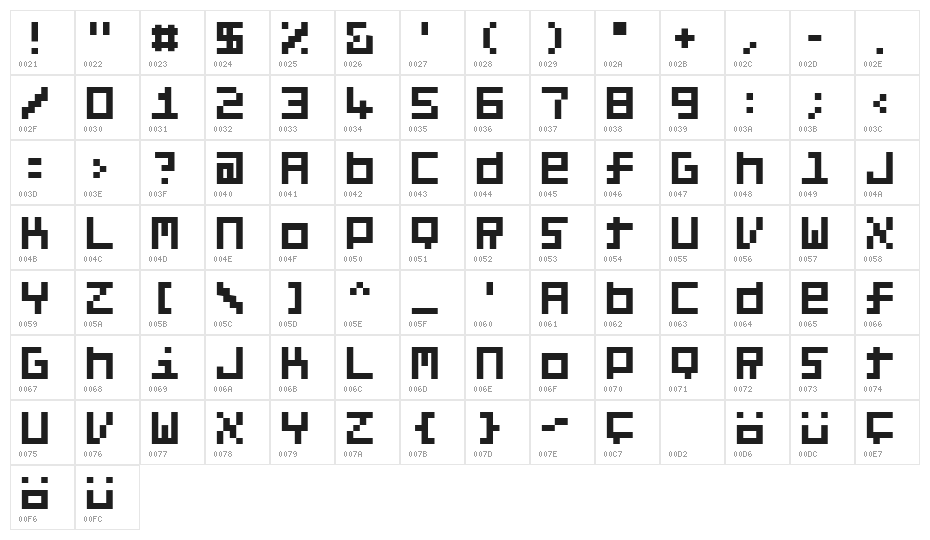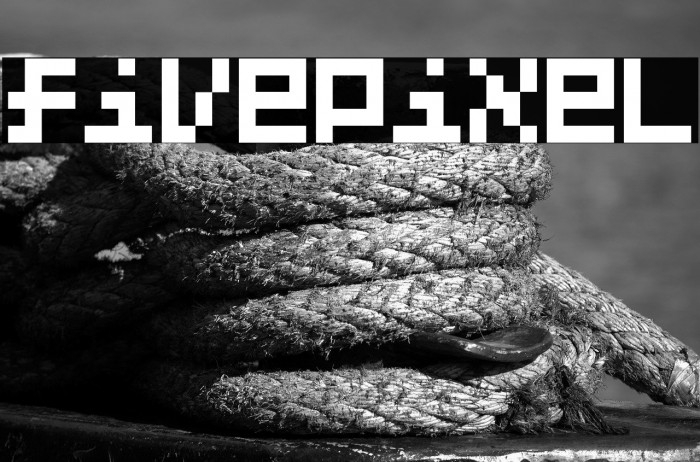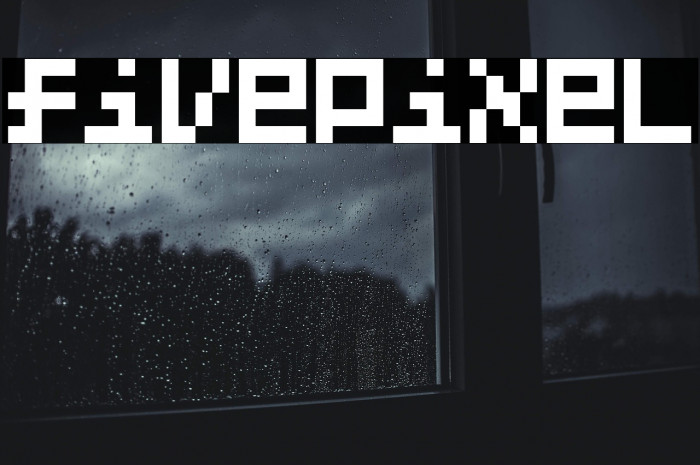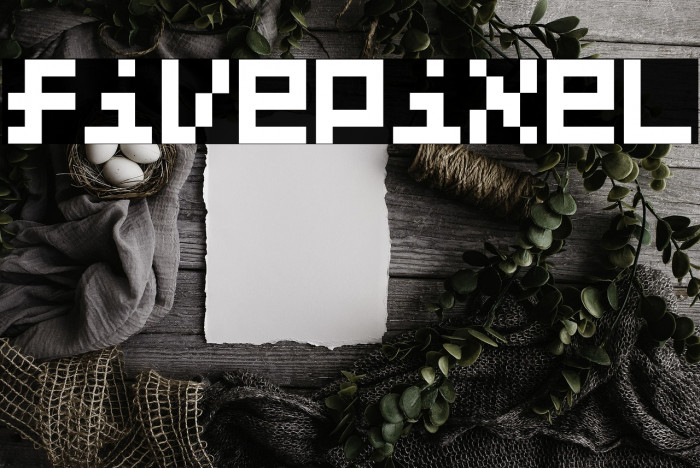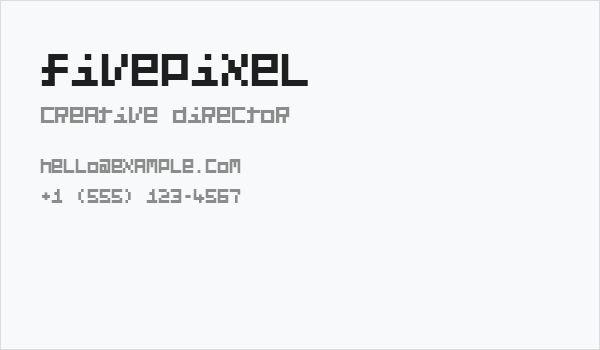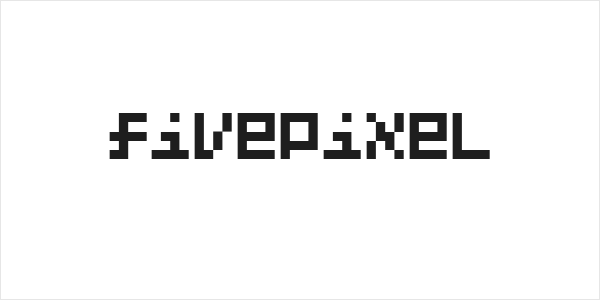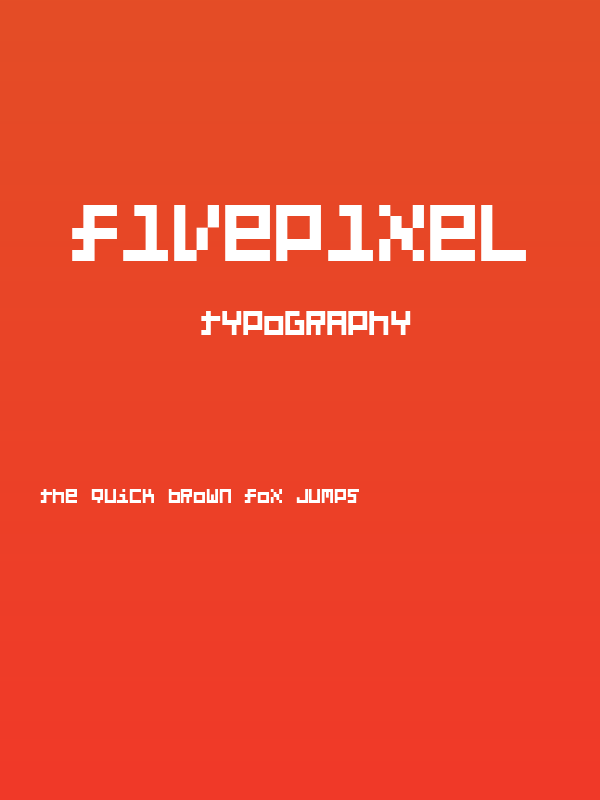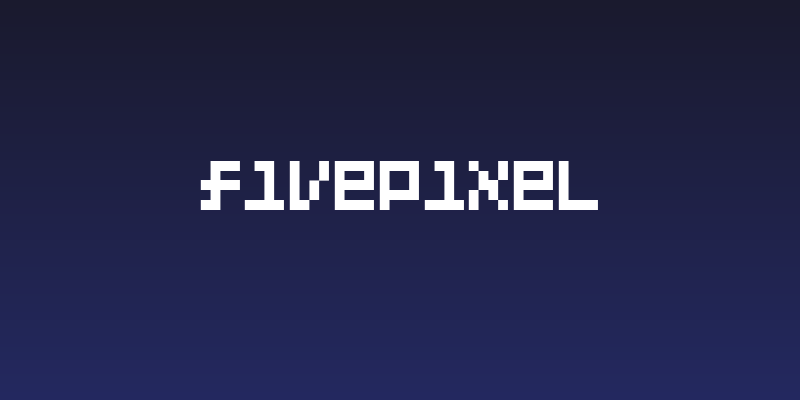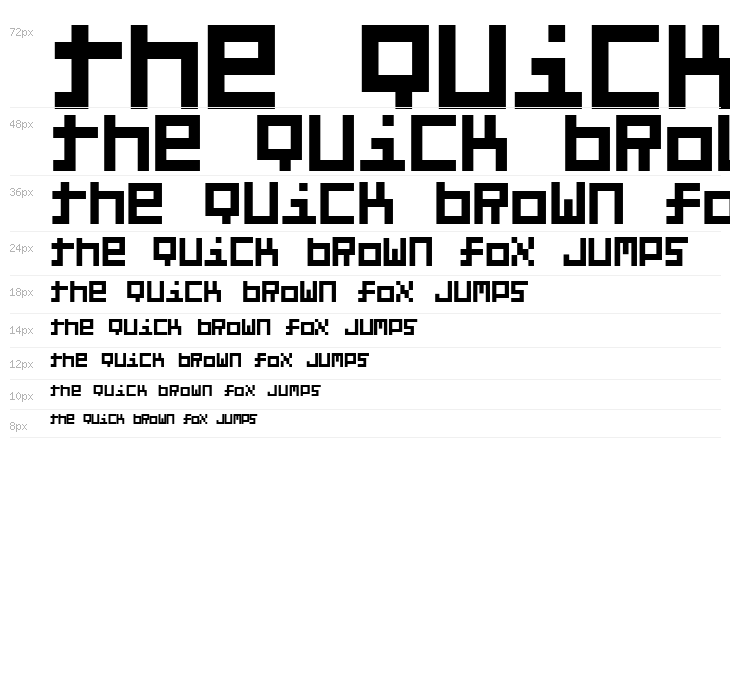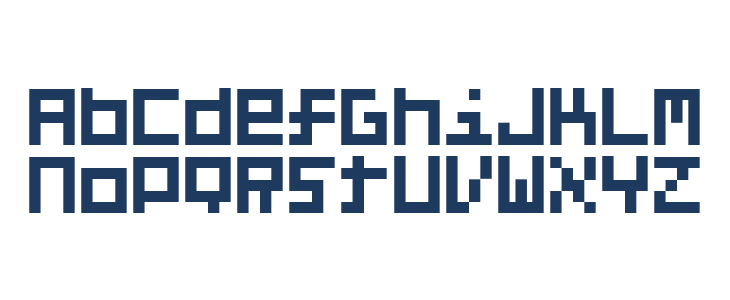
FivePixel Font
FivePixel Description
This font is a pixelated, monospaced typeface that evokes a retro, digital aesthetic reminiscent of early computer and video game graphics. Each character is constructed with a grid-like precision, giving it a blocky and geometric appearance. The uniformity in width and height across all characters ensures a consistent and orderly presentation. The font is highly legible at larger sizes, making it ideal for capturing attention in digital or themed projects. Its nostalgic feel is perfect for projects that aim to evoke a sense of vintage technology or classic gaming. The characters are evenly spaced, maintaining a balanced and structured look.
| Use Case | Headlines, Logos, Digital displays |
| Proposed Projects | Ideal for video game design, retro-themed websites, digital art projects, and tech-inspired branding. |